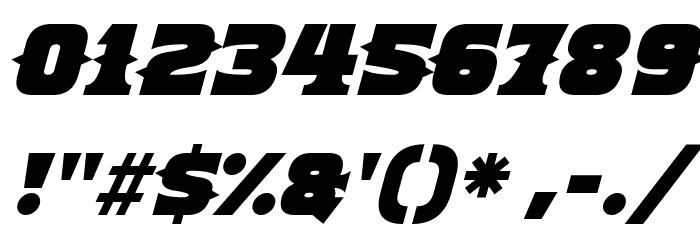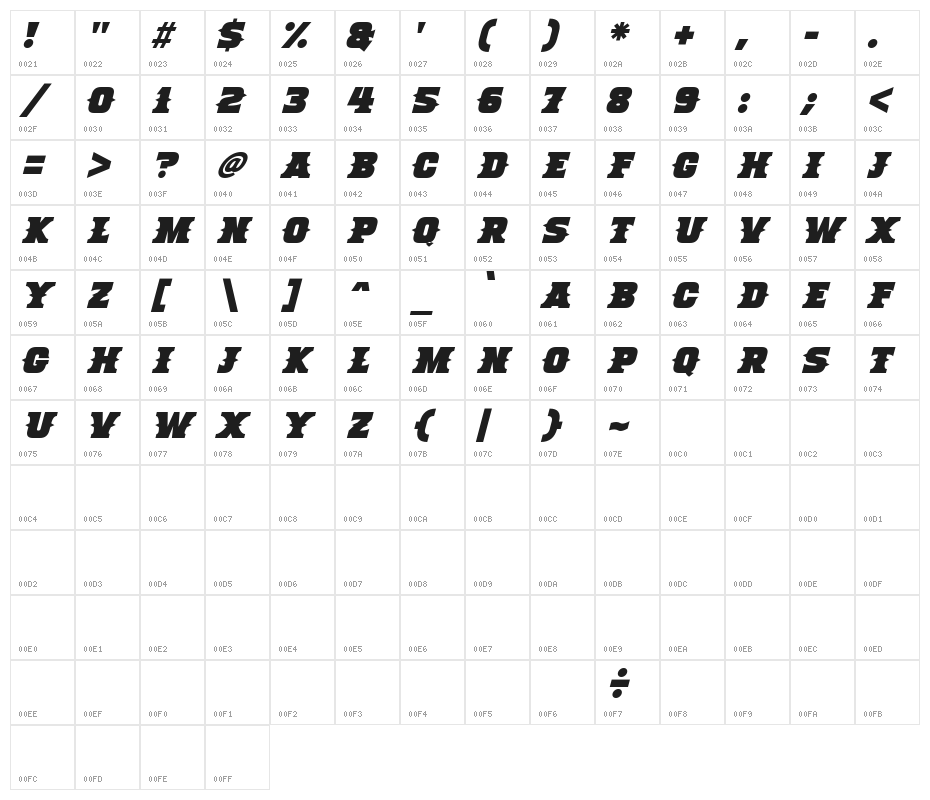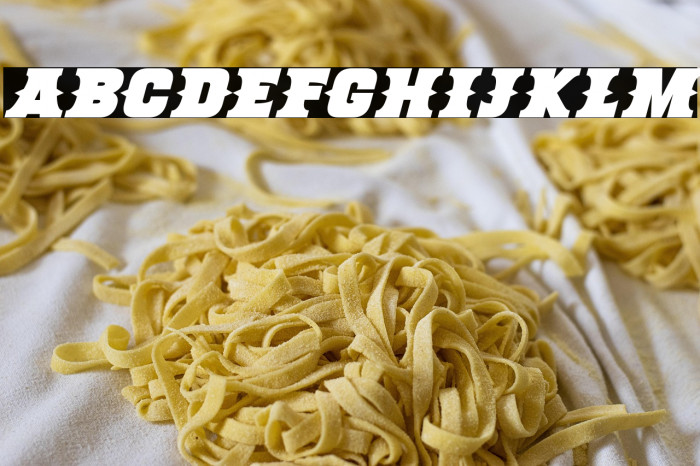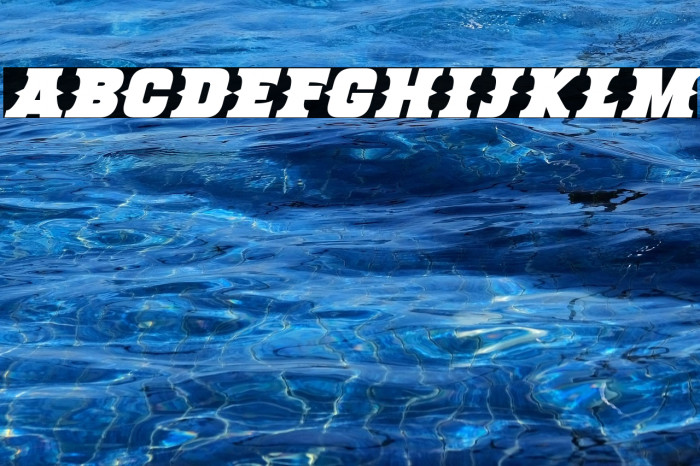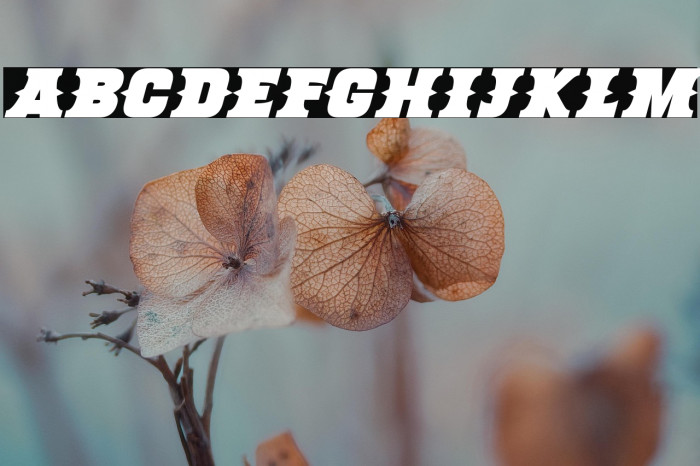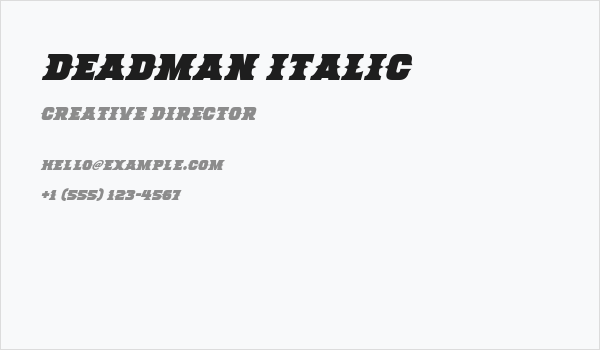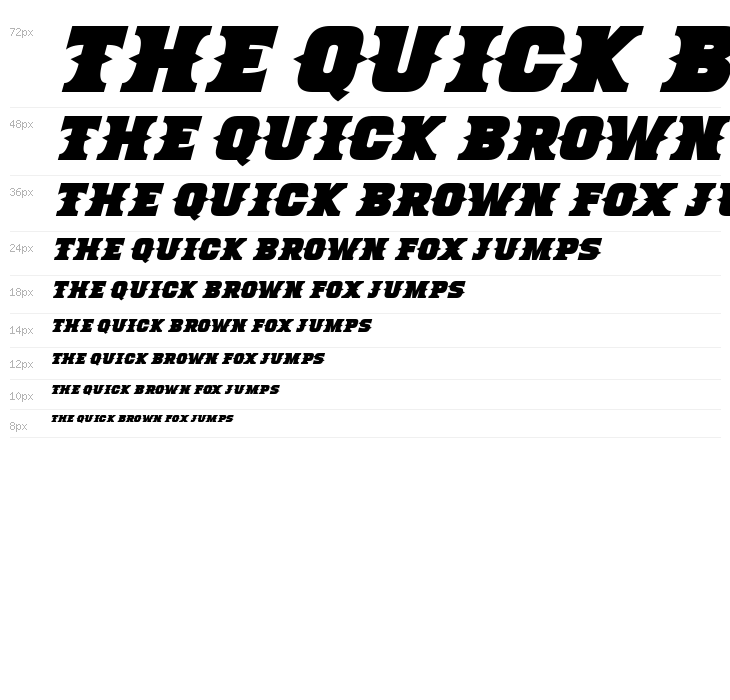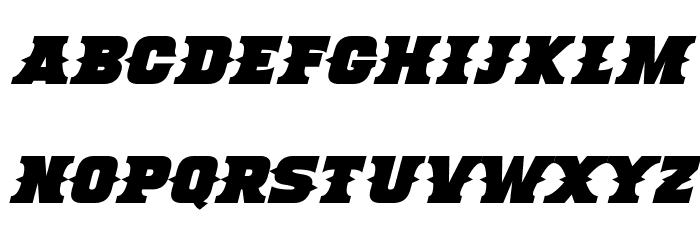
Deadman Italic Font
Deadman Italic Description
This font features a bold and dynamic design with a distinct italic slant, giving it a sense of motion and energy. The characters are heavily stylized with sharp, angular edges and a unique cut-out effect in the middle, creating a striking visual impact. The uppercase and lowercase letters maintain a consistent style, while the numbers and special characters complement the overall aesthetic. The font's boldness and unique style make it stand out, ideal for projects that require a strong visual presence.
| Proposed Projects | Ideal for posters, logos, and branding materials that require a bold and dynamic appearance. |